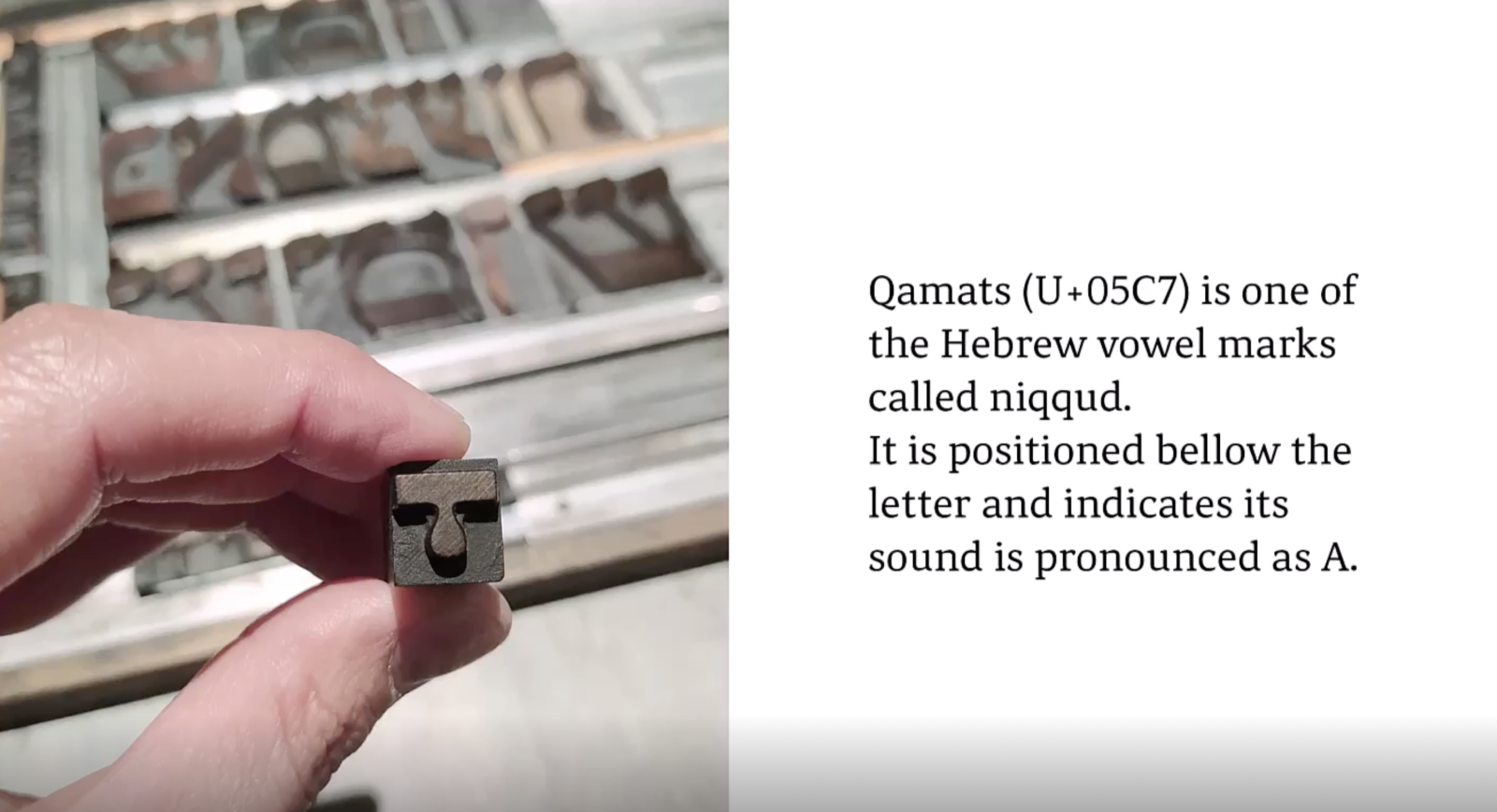
Shani Avni: Preserving Heritage and Pushing Boundaries in Hebrew Typography
Shani Avni, the Hebrew Script Chair for the GRANSHAN Type Design Competition 2023/2024, brings a unique blend of expertise, passion, and dedication to the world of Hebrew type design. As the Ismar David Assistant Curator at the RIT Cary Graphic Arts Collection, Shani has spent years researching, preserving, and advancing Hebrew typography.
Reflecting on her role and the importance of beyond Latin scripts, Shani emphasizes
»Hebrew type design is not just about creating beautiful forms, but about preserving a cultural heritage and pushing it forward for future generations«
Shani’s journey began with a BA in Graphic Design from Shenkar College, Israel, and an MA in Typeface Design from the University of Reading, UK. Her deep connection to the David Hebrew typeface family, explored in her MA thesis, laid the foundation for her ongoing research and curation work. Since then, she has dedicated her career to bridging history and innovation—bringing to light Hebrew and Yiddish woodtype while fostering contemporary design excellence.
Shani Avni shares her insights on celebrating her favorite Hebrew glyph
In the interview, when asked about her favorite Hebrew glyph, Shani’s response reflects her deep understanding of form and function, as well as her appreciation for the nuances of type design.
For young designers aspiring to compete in GRANSHAN, Shani offers invaluable advice:
»Stay curious, immerse yourself in the history of your script, and always strive to innovate while respecting its roots«
Shani’s work serves as a testament to the power of typography in preserving cultural identity while embracing modernity. Her leadership at GRANSHAN ensures that scripts like Hebrew continue to thrive, inspiring designers worldwide to push boundaries and celebrate typographic diversity.